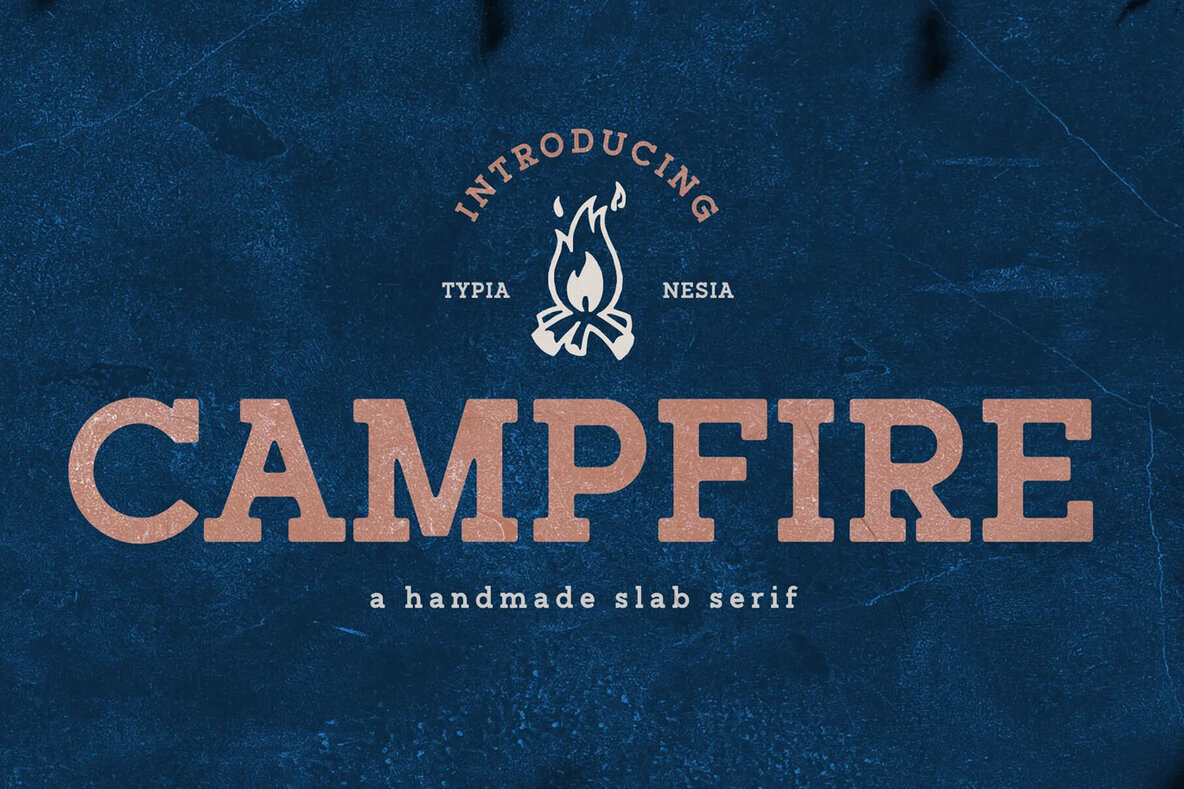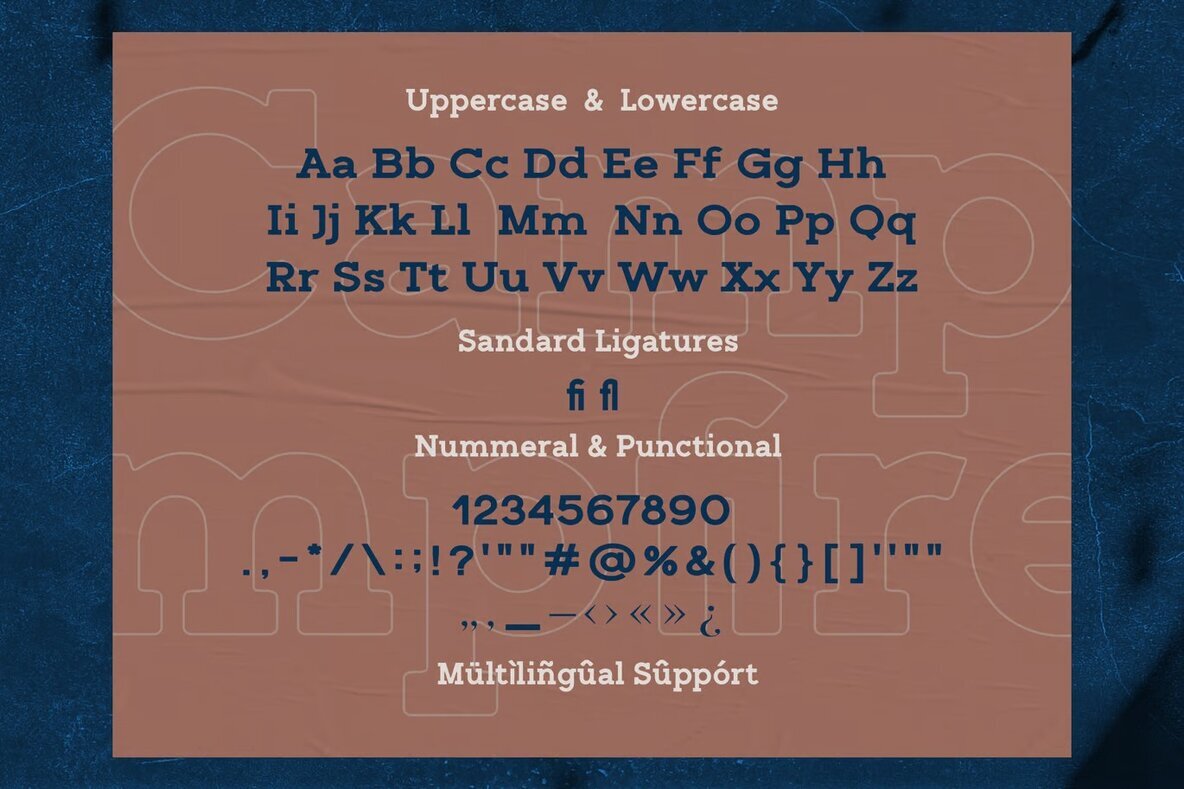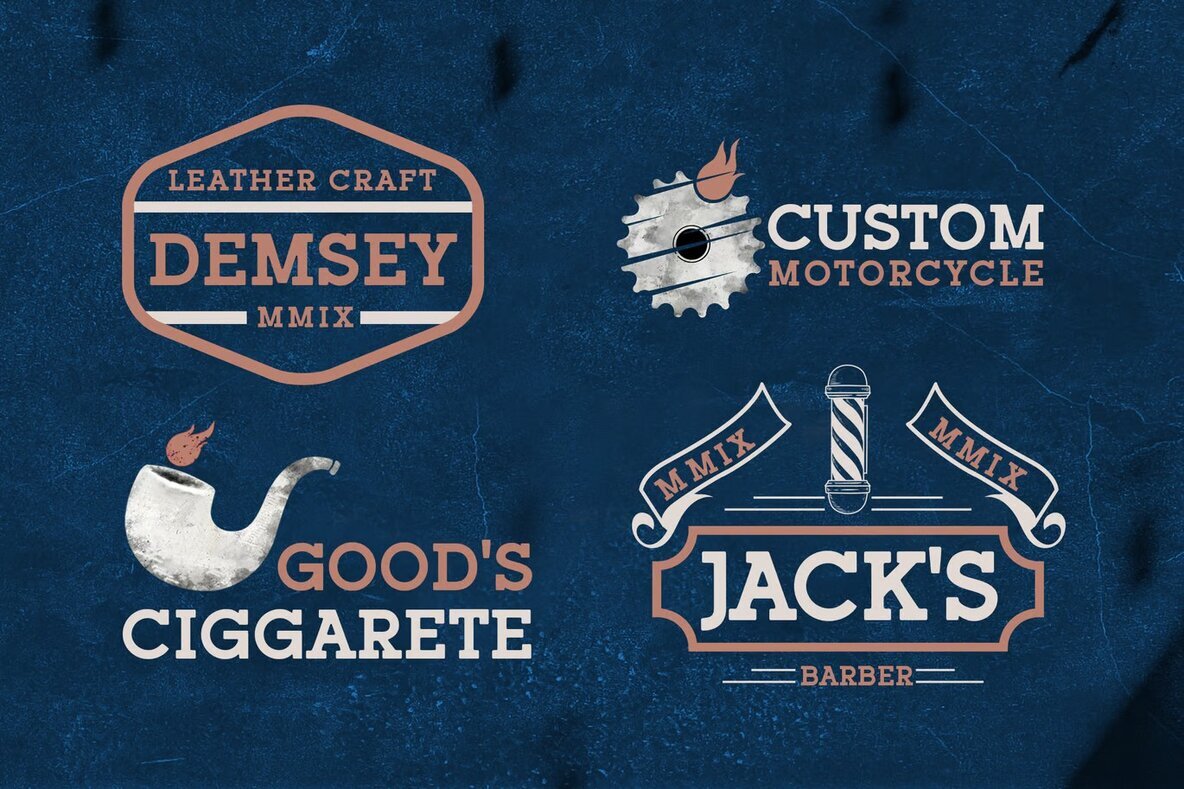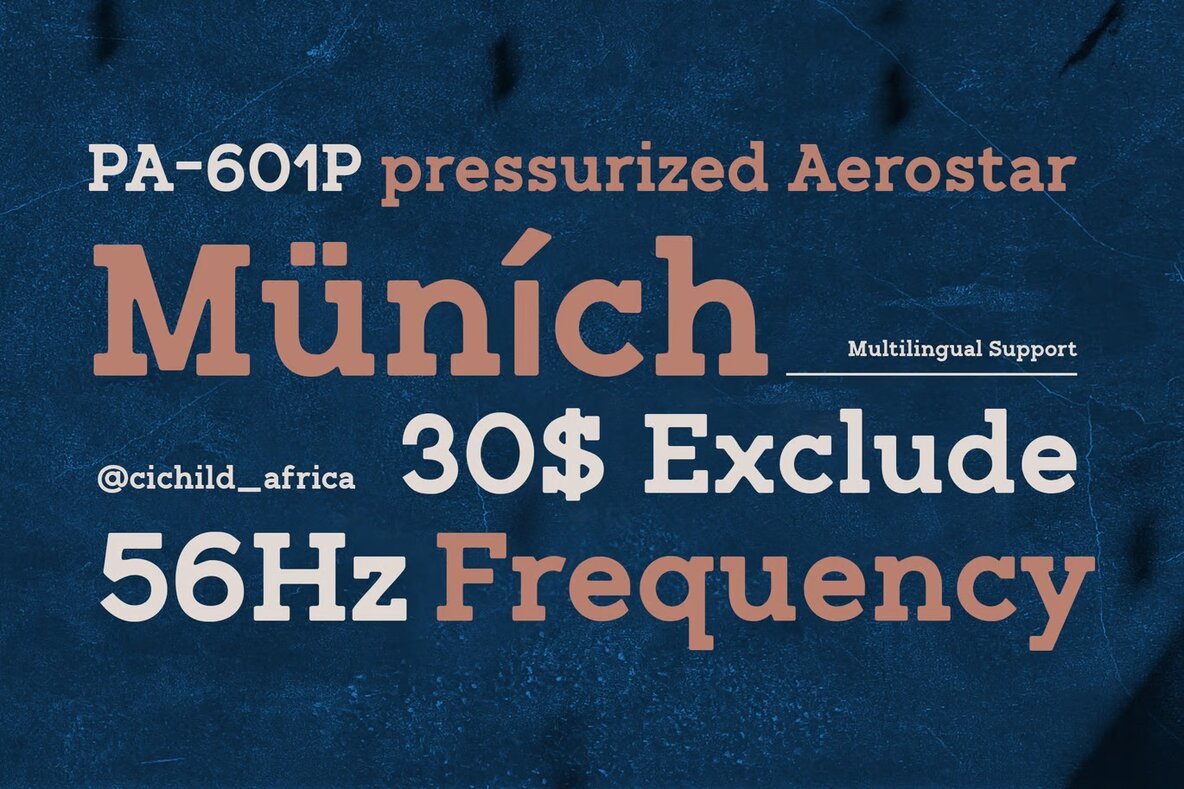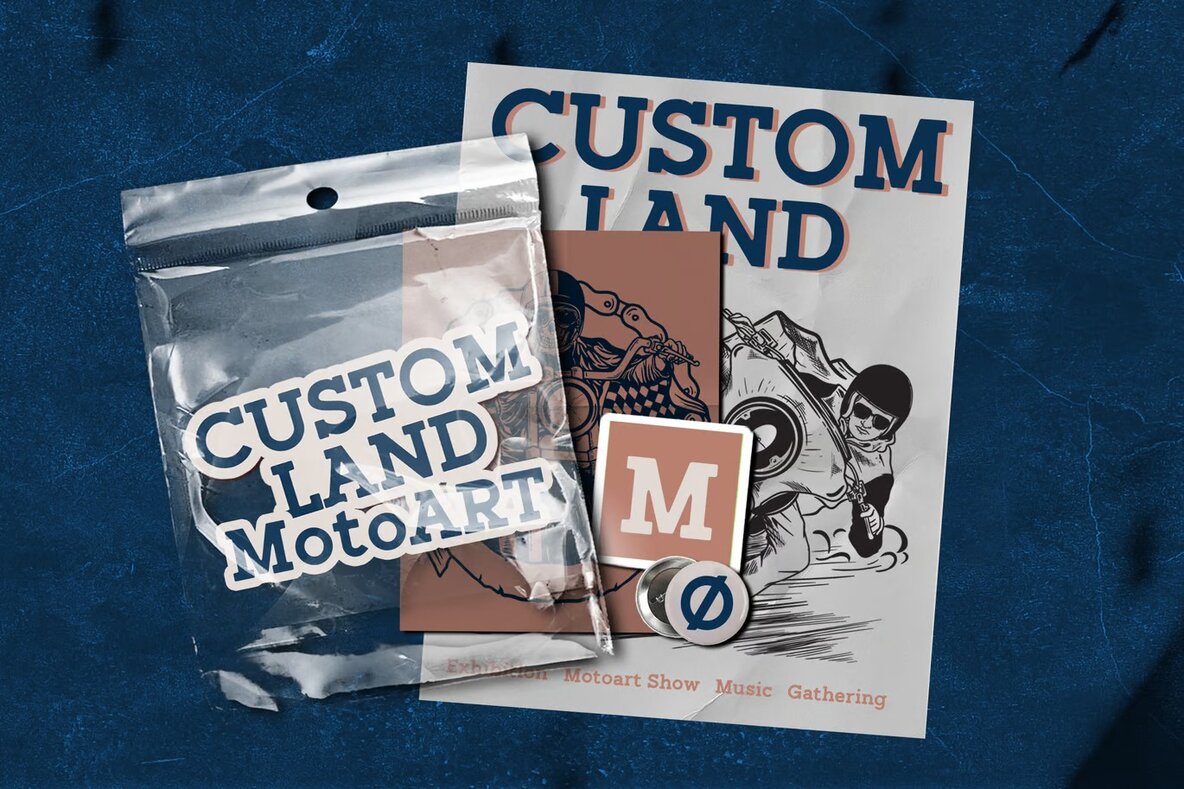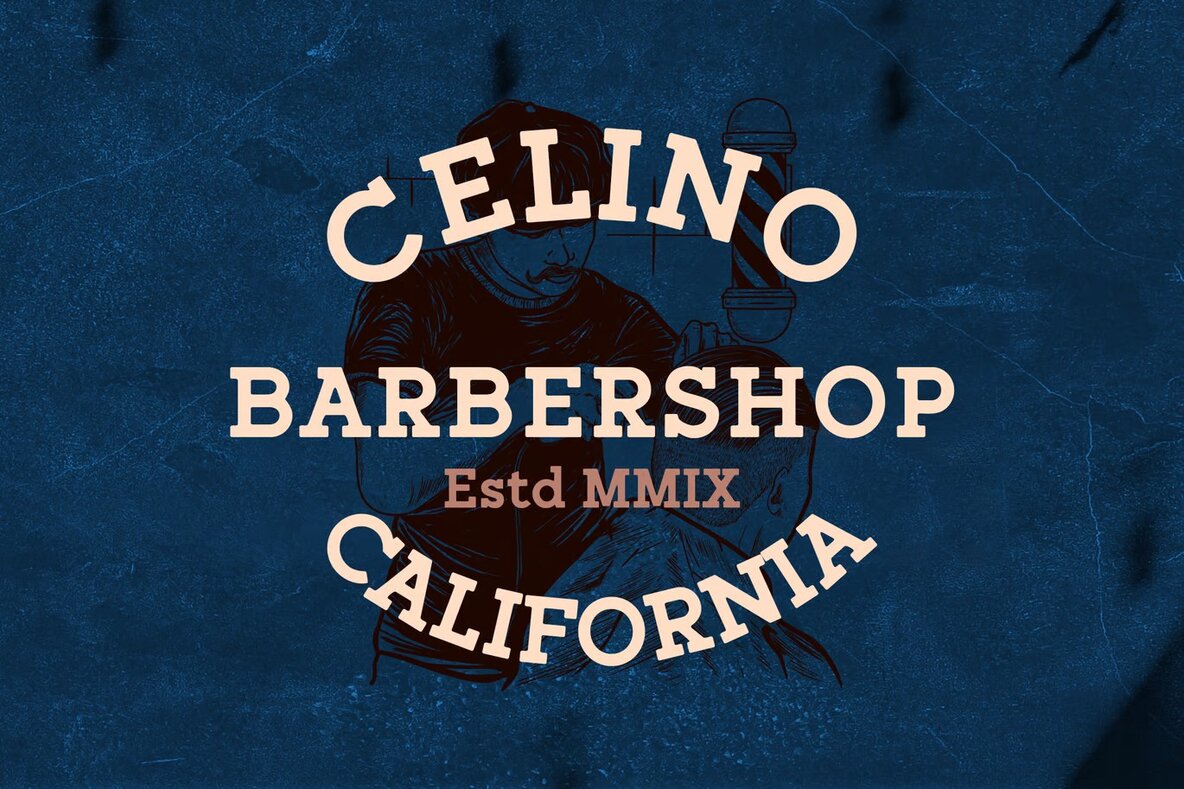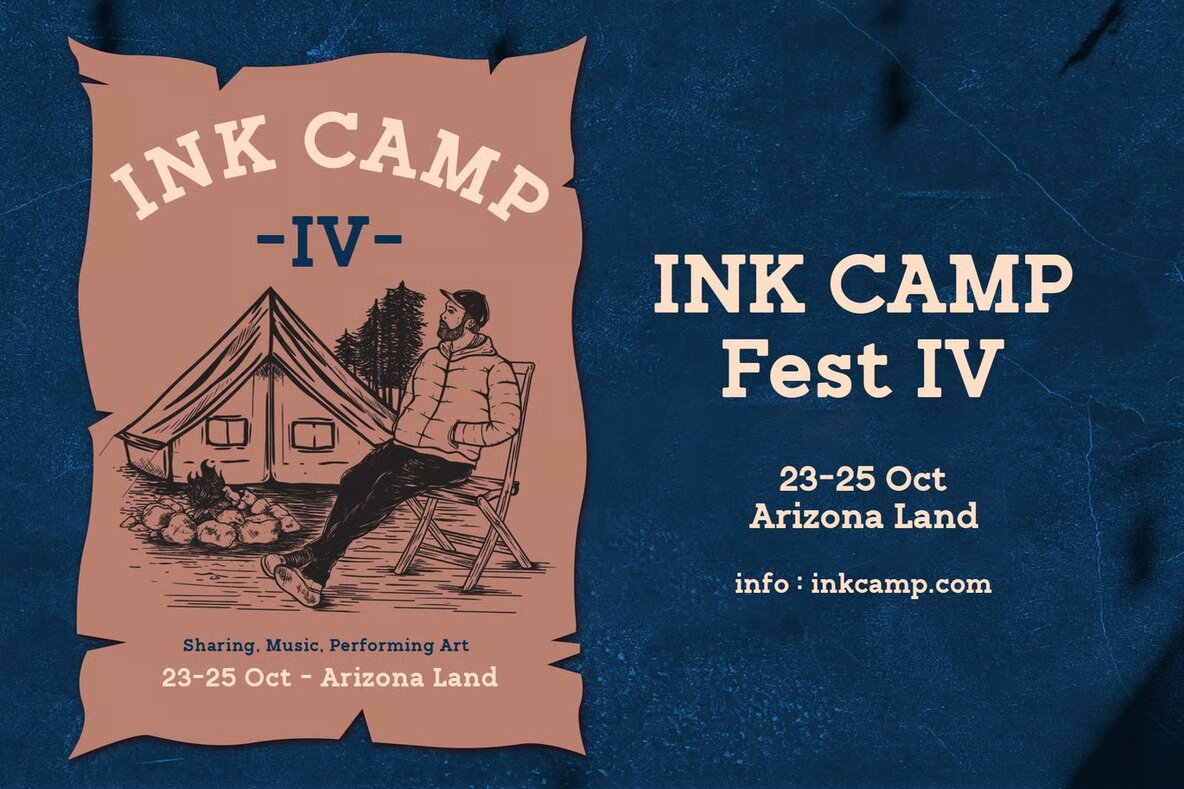
Campfire Font
Campfire Regular
Campfire font is an ideal choice for a wide range of creative projects. Its versatile design makes it suitable for logo branding, editorial layouts, and stationery, while its clean lines enhance sports and blog designs. Whether you're working on modern advertising or crafting unique art quotes, Campfire's aesthetic appeals to a diverse array of design needs.
In addition to these applications, Campfire is well-suited for home decor projects, book and cover titles, and special event invitations. Its distinctive style provides an artistic touch to those seeking a modern yet approachable typeface. Suitable for both digital and print media, Campfire effortlessly blends with various visual themes, making it a valuable asset for designers across different fields.